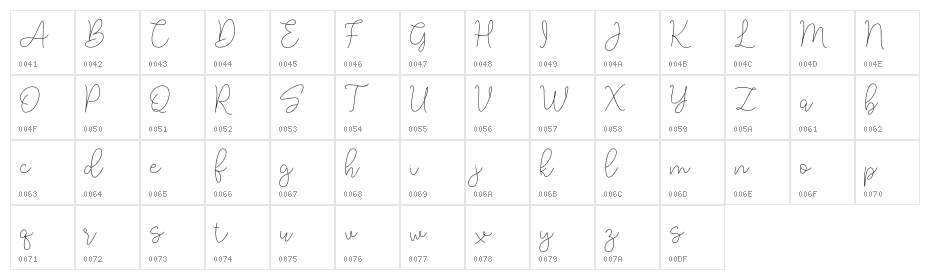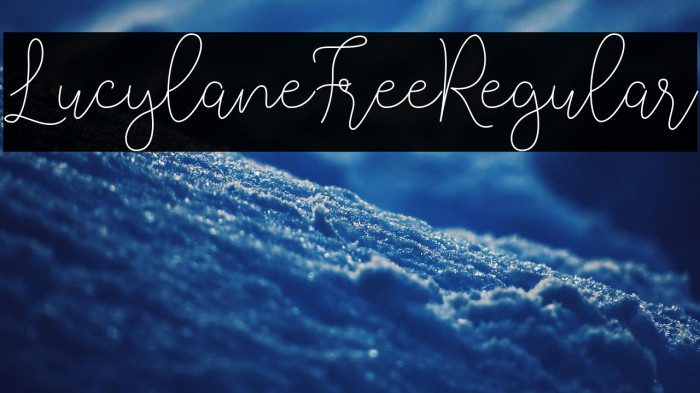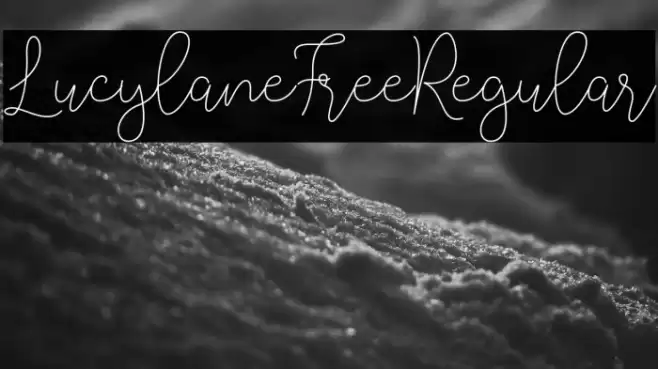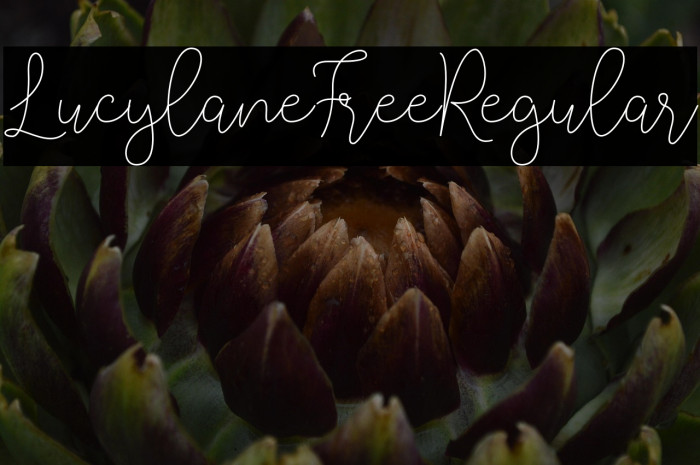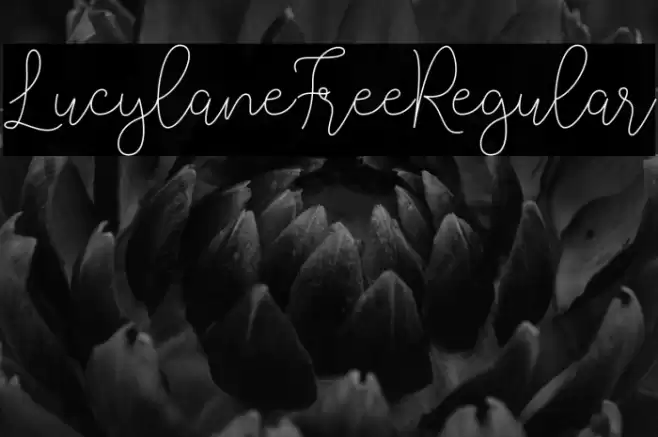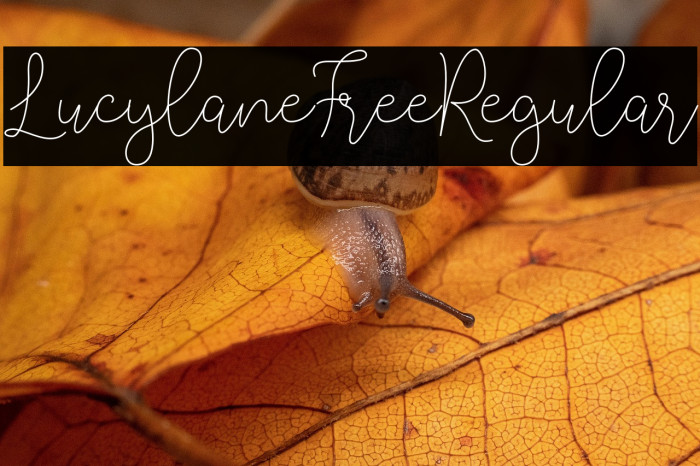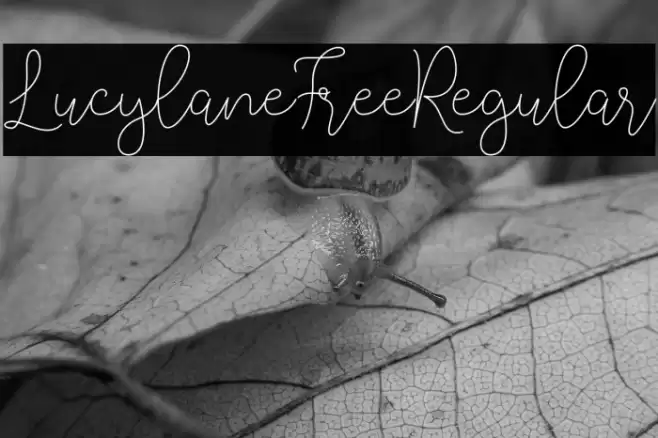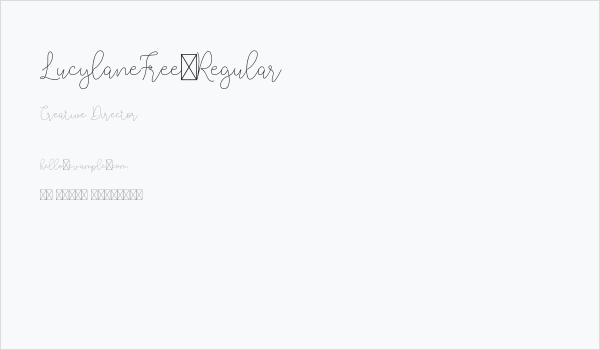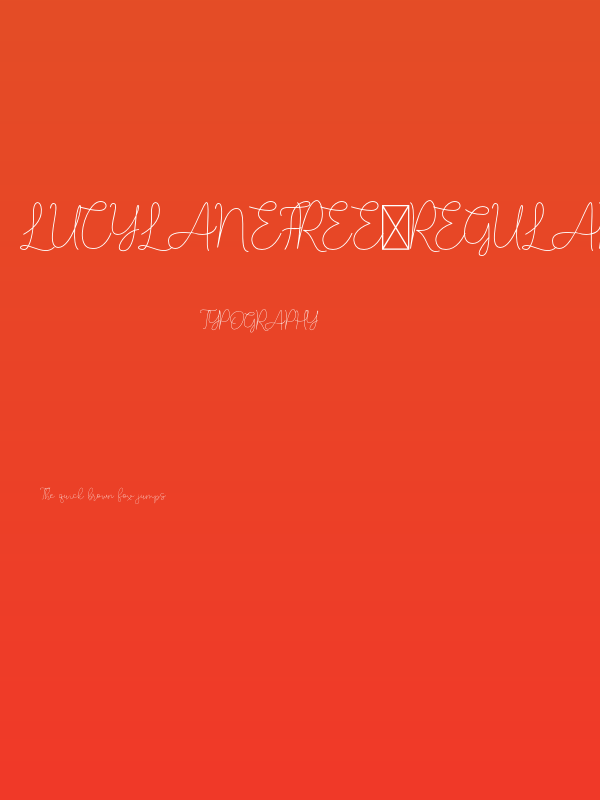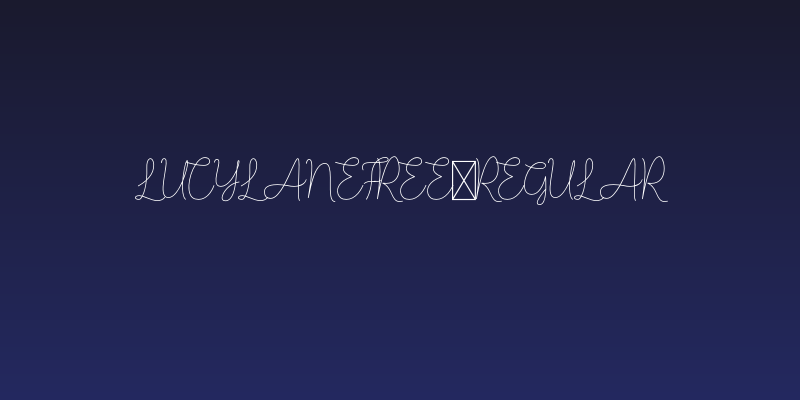
LucylaneFree-Regular Font
LucylaneFree-Regular Description
This font exudes a delicate and elegant style, characterized by its flowing, cursive script. The letters are interconnected with smooth, sweeping strokes, giving it a handwritten appearance. The uppercase letters are slightly more ornate, with extended flourishes that add a touch of sophistication. The lowercase letters maintain a consistent flow, enhancing readability while preserving the font's artistic flair. The overall design is airy and light, making it suitable for projects that require a personal and refined touch. The font's thin lines and graceful curves make it ideal for invitations, greeting cards, and other creative projects where a touch of elegance is desired.
| Use Case | Invitations, Greeting cards, Personal branding |
| Proposed Projects | Ideal for wedding invitations, greeting cards, personal branding, and elegant stationery. |